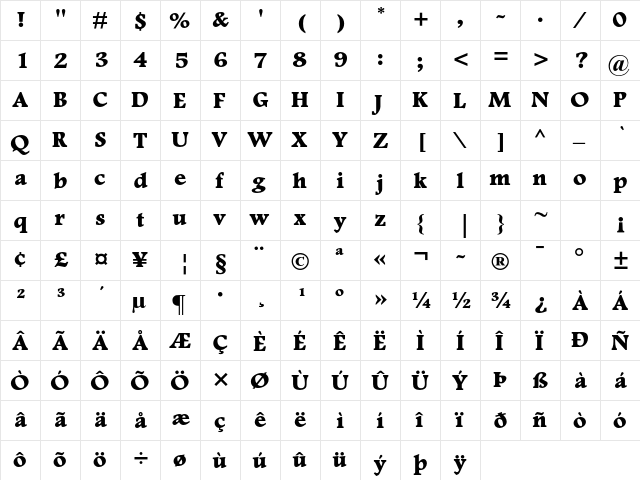
Footlight MT Std Extra Bold
Design Context for Footlight MT Std Typeface
Footlight MT Std offers clean, dependable letterforms without strong stylistic allegiance, making it a practical choice for designers who need flexibility. Its bold stroke weight gives it real presence on the page.